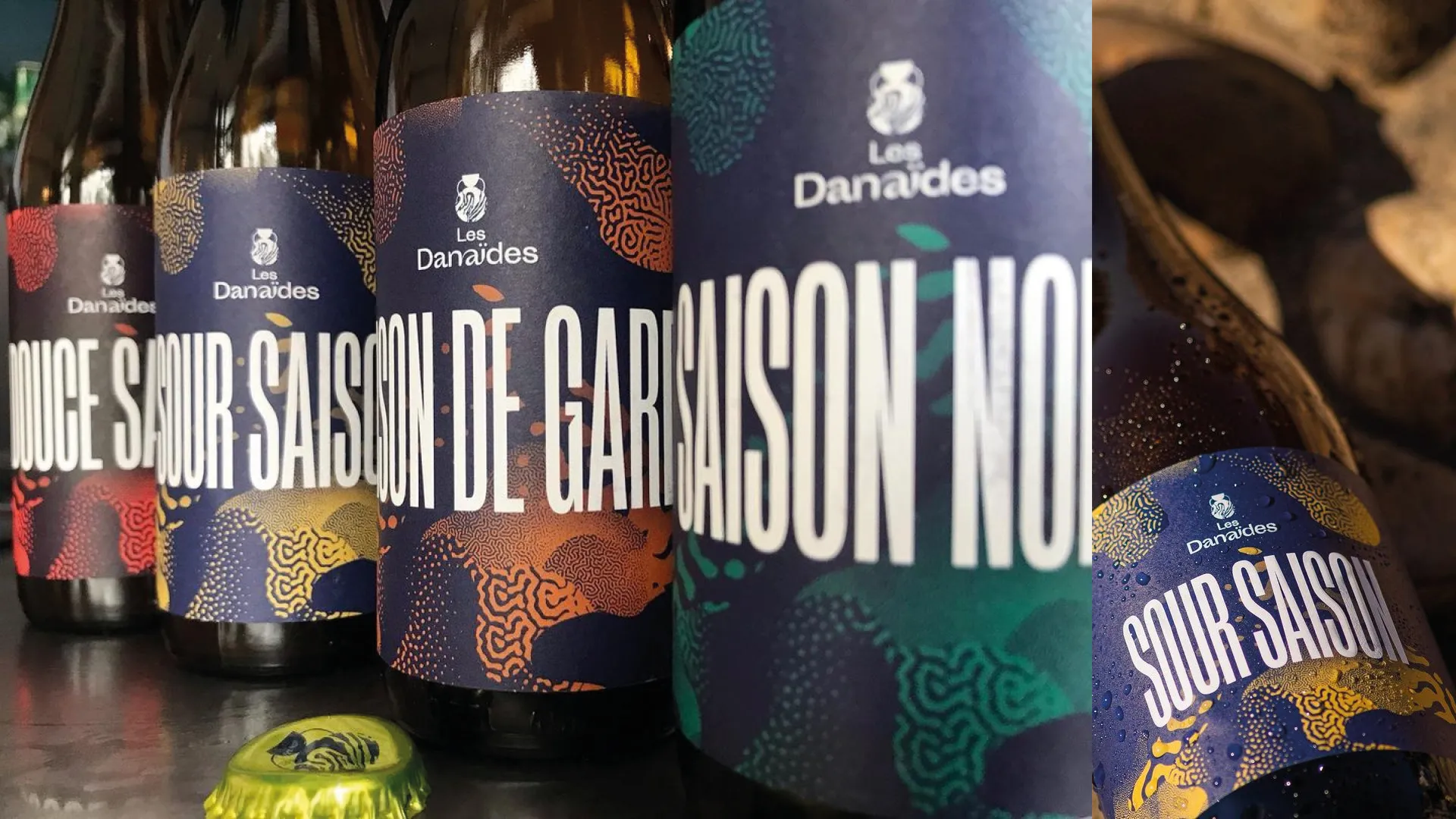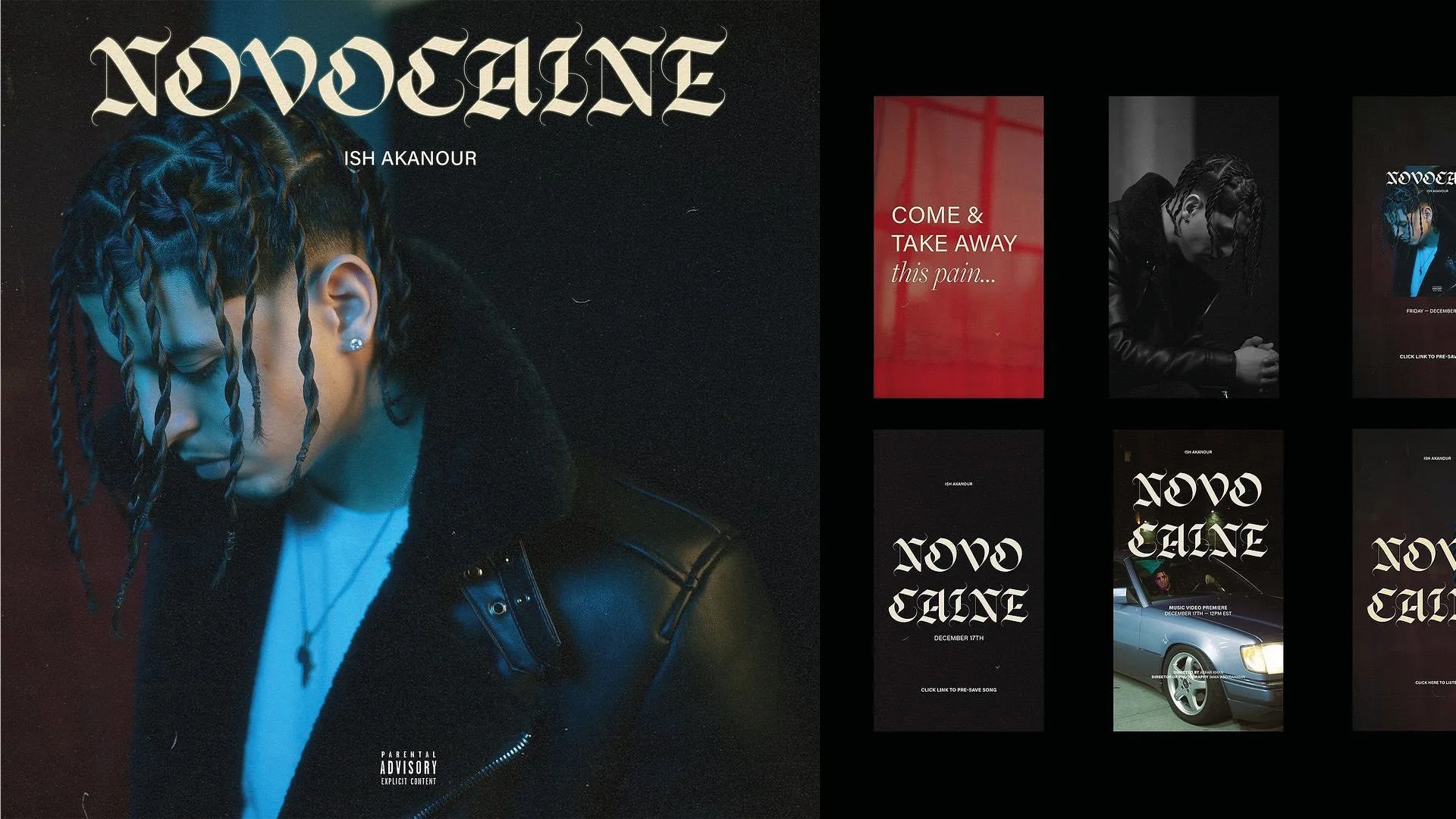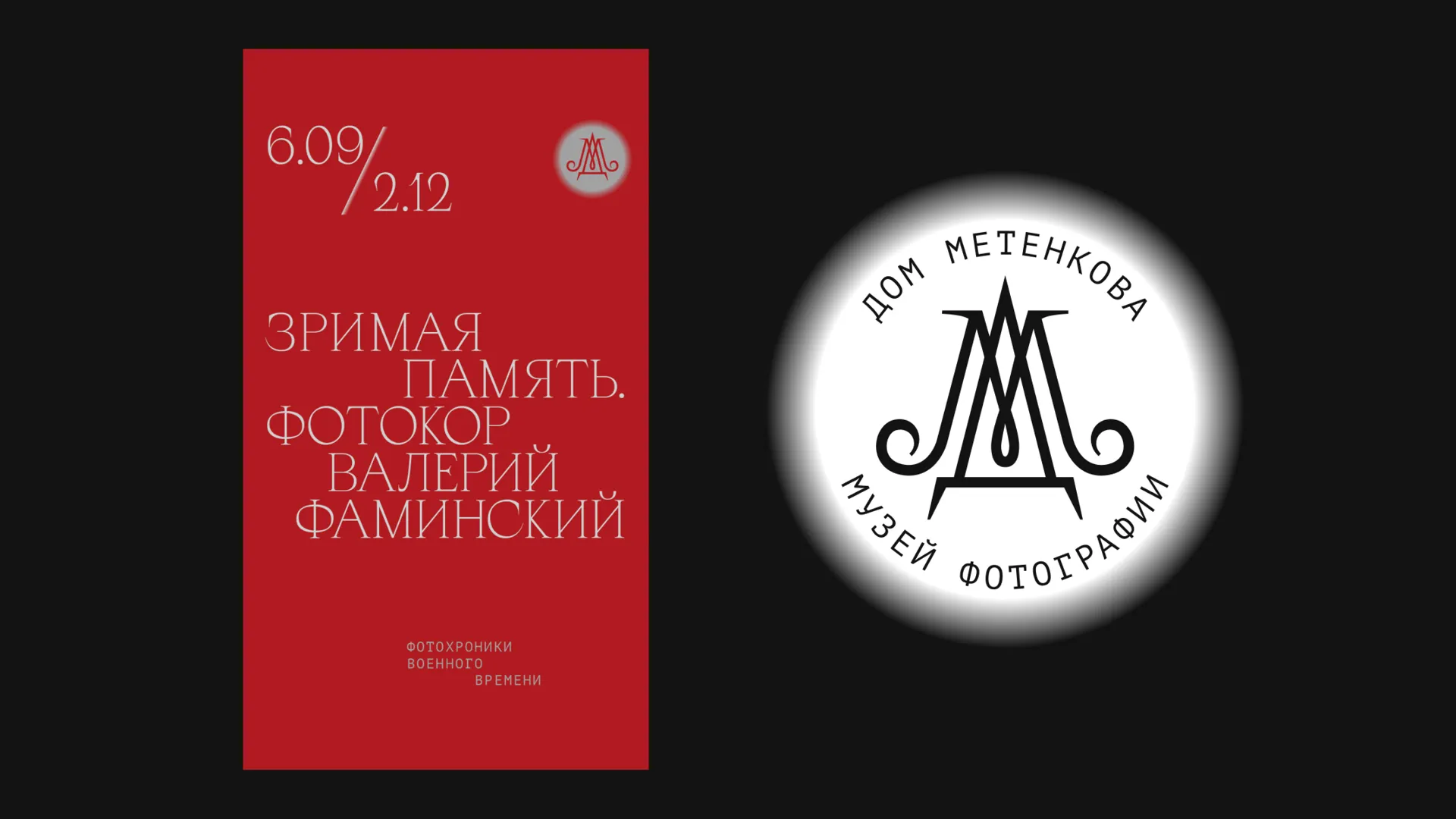
Fonts in branding
The role of fonts in branding
Typography and brand identity... That's a question that deserves more than a summer entry. And that's probably what we'll try to correct later.
The branding is designed by Le Studio CulottĂ©, a French agency specialised in branding for wine and beer. Creating a living visual identity with organic patterns and colors, the studio combines Arges by Matthieu Salvaggio and others on the beer labels but also on the brewery’s website.
What is branding?
The branding corresponds in its etymology to the mark left by the breeder in the flesh of cattle (and also humans) to indicate its ownership. Branding is still practiced in the USA in particular, even if its use is no longer of great use in the age of electronic tagging, which hosts much more complete and easy-to-read data.
Branding is therefore the design of a graphic identity (but not only) for commercial or non-commercial organizations, association, trade union, political party, school, business, industry, etc.
The purpose of branding is to enable the organization to be identified via its own graphic codes, i.e. different from its competitors or any other company.
However, the aesthetics of different business sectors also make it possible to recognize whether Apple sells fruit or electronics, whether Shell sells shellfish or fuel. The etymological root of the word "identity" lies in the identical, the similar: we define ourselves first in relation to our nearest and dearest, then individually.
The font used in a logo should rarely be used also on titles or text, but for this use, but works well.
Dom Metenkova Photography Museum is the only photographic museum in the Ural region. It displays both historical expositions and projects of those authors who currently work with photography and demonstrate a modern view on visual art.
The basic logo element is the letter M from the photographer’s personal stamp, and the monogram on the gates of his house. The blurry circle means playing with an image of an eclipse from Metenkov’s photo collection.
The primary typeface is the elegant, expressive Apoc.
Logo first
A good logo has to be simple to be recognizable. This law needs to be verified by researchers, but for the moment, the history of graphic design and the success of many companies prove it right.
While Apple, Nike and Shell are known for their clean-cut symbols that have become engraved in the collective unconscious of Western society, the graphics of Coca-Cola, Ford and Disney are equally powerful images.
Thinking about the typography within the logo is therefore a crucial task.
- Make sure the name to be included is short enough to be compact and easily pronounced. If it isn't, you can condense it into a monogram.
- Always work in black on a white background, using your brand symbol as a starting point (Apple's apple, Nike's swoosh, etc.).
- Draw inspiration from the shapes present in this sign to develop a formal grammar. The aim is not to develop a type design directly inspired by these shapes, but to keep a similar state of mind.
- Select typefaces that match, whether in capitals, in lowercase, in a mix of both, or even by imagining retouching to obtain an omnicase (capitals and lowercase being at the same x-height).
- Handwritten? Sometimes, the best typographic solution is a handwritten reference to the signature. In this case, work on thickness and rhythm, without falling into illegibility or clichéd calligraphy.
- The use of a second typeface for a logo must be limited to a few glyphs or a word that remains secondary, otherwise a dominant typeface will no longer be identified.
- Retouching certain glyphs can reinforce a rhythm, accentuate the meaning of a name, or include a symbol in place of a letter. In short, once you've selected your typeface, the creative game begins, highlighting your customer's values.
- Colors come next. Limit them to 2 or 3 colors maximum. Think about deployment on printed documents, and therefore about the fidelity of their rendering. Metallic inks or special finishes deserve alternatives to render correctly on screen or on a sign, for example.
- Logo animation isn't just for film studios or TV channels anymore. Think also about how to make the logo appear on a website or corporate video. Simple fading is no longer enough. If used frequently, this animation can also be the element that gives the logo its true meaning.
- The creation of a custom font is necessary if glyph retouching requires harmonization on important product or subsidiary names. In this case, working in partnership with BlazeType will ensure the smooth running of a tailor-made design that respects the final customer's needs. Tinkering with a few glyphs is within the reach of any graphic designer; producing a harmonious set of glyphs remains a craft in its own right. To find out more, read by here, there, or here (ITW summer2023 Ă  ajouter).
Asfar Khan takes credit for the campaign for Ish Akanour’s song “Novocaine”. He did the creative direction, the photography, and the cover design. Emeritus Display is used for the title throughout the campaign, from the EP cover to the music video.